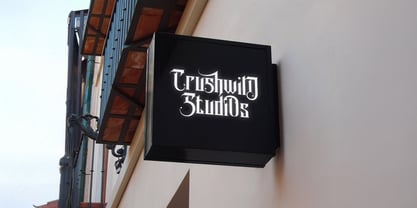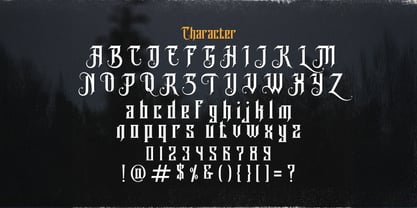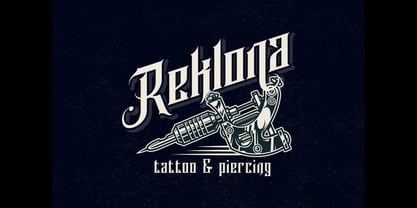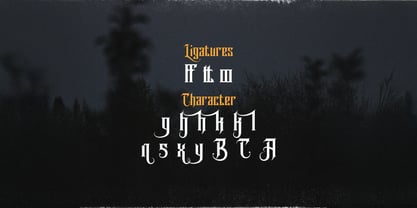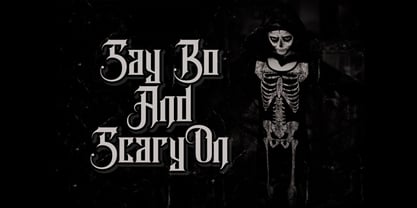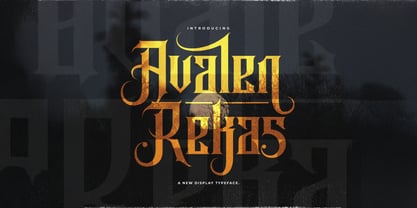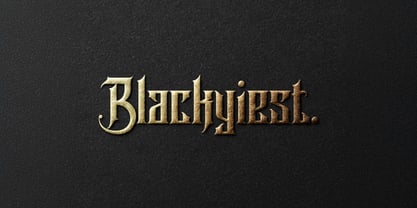
Avalen Rekas
by Stringlabs Creative Studio
The Avalen Rekas Font Family was designed by Virgiawan Listanto and published by Stringlabs Creative Studio. Avalen Rekas contains 1 styles.
Avalen Rekas is a striking blackletter font that fuses medieval aesthetics with a bold, modern attitude. With its sharp angles, dramatic strokes, and intricate details, Avalen Rekas is designed to make a powerful statement in any creative project.